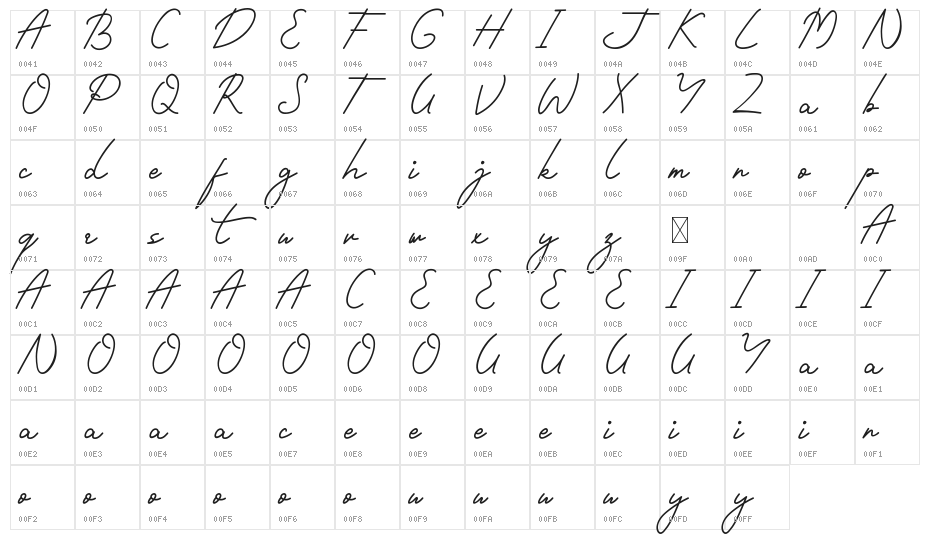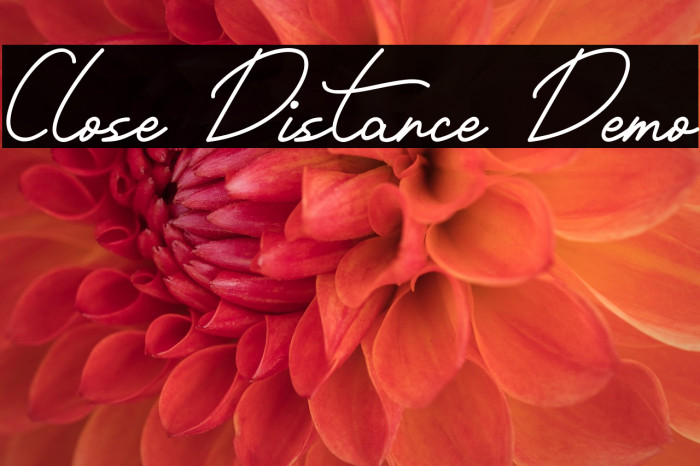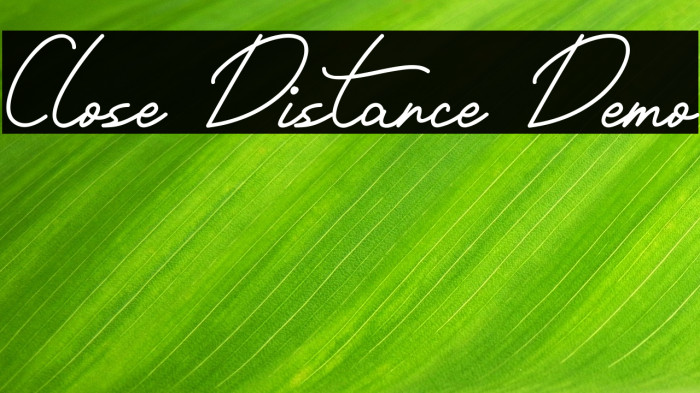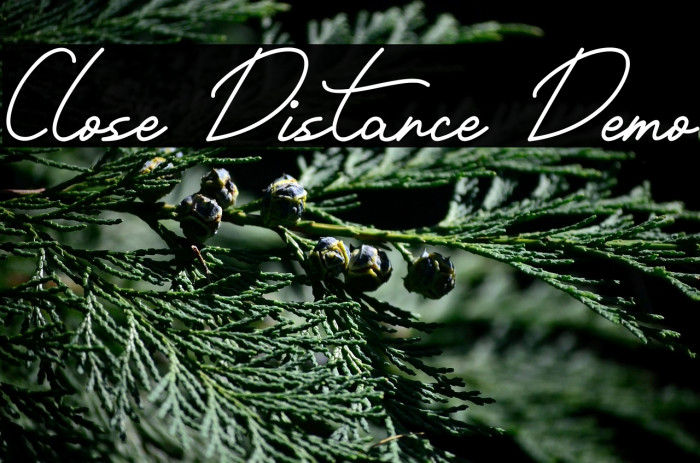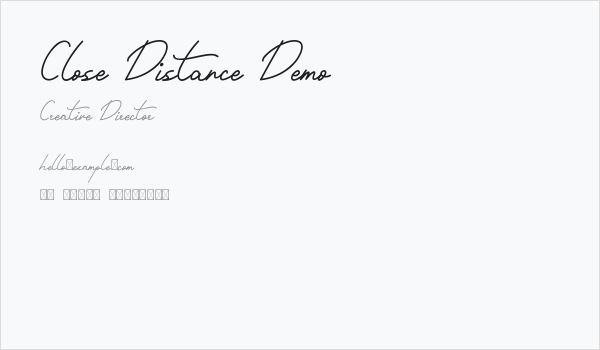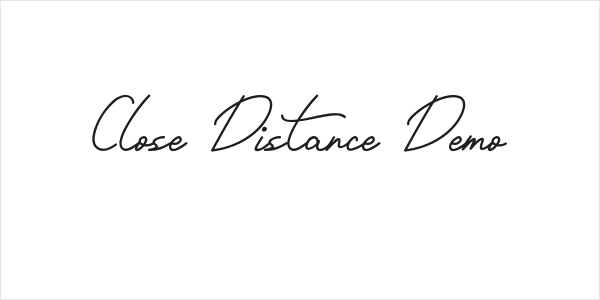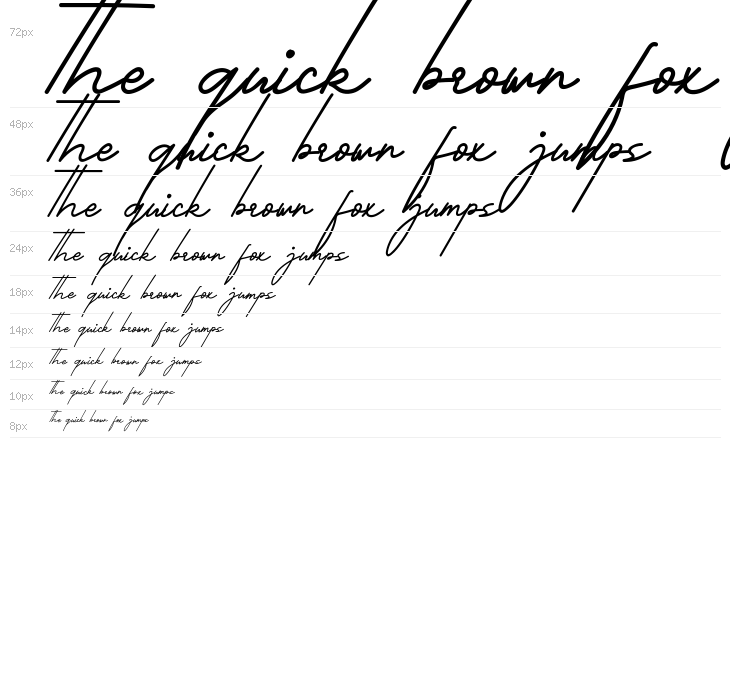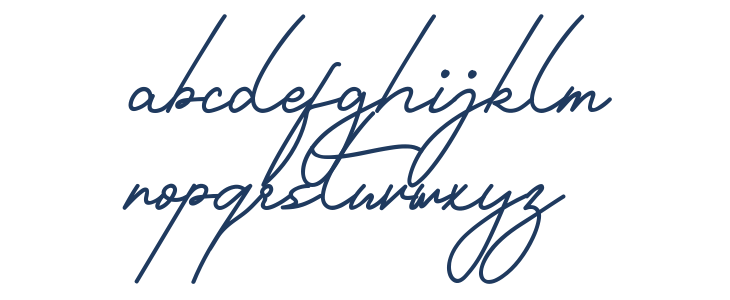
Close Distance Demo Font
Close Distance Demo Description
This font features an elegant, flowing script style that mimics the fluidity of cursive handwriting. The characters are connected, creating a seamless and continuous look that is both sophisticated and approachable. The uppercase letters are tall and slender, with graceful loops and curves that add a touch of refinement. The lowercase letters maintain a consistent flow, enhancing readability while preserving the artistic flair. The numbers and special characters are designed to complement the overall aesthetic, ensuring a cohesive appearance across all text. This font is ideal for projects that require a personal touch, such as invitations, greeting cards, and branding materials. Its delicate strokes and graceful curves make it a perfect choice for conveying elegance and sophistication.
| Overall Style | Elegant, Sophisticated |
| Proposed Projects | Ideal for invitations, greeting cards, branding materials, and any project requiring a personal touch. |